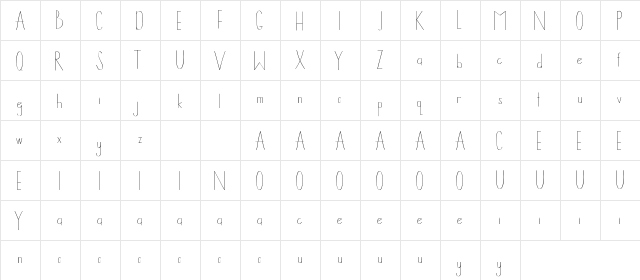
Timitty Demo Sans Regular
| Foundry | Edric Studio |
| Designer | Saila Nurissalma |
Design Context for Timitty Demo Sans Typeface
Timitty Demo Sans is a composed and adaptable typeface that performs quietly and consistently across a wide range of design contexts.